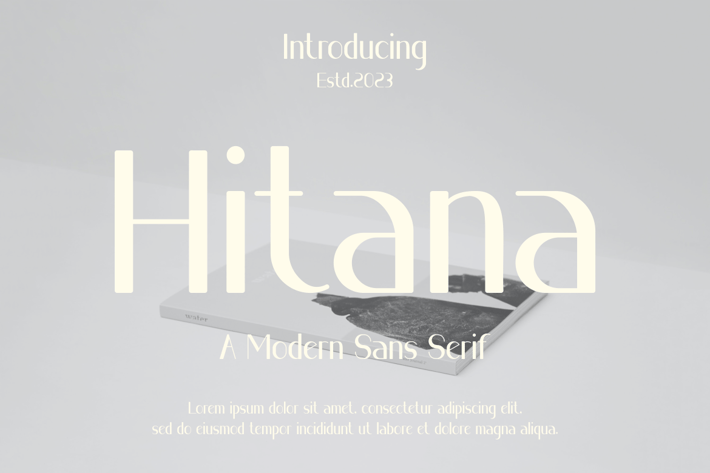
Hitana Font
Introducing our new product Hitana Font - Modern Font
Hitana Font - Modern Font is a bold and authentic display font. The font is suitable for any branding project like logo, t-shirt printing, esport, and many more. outstanding in a wide range of contexts.